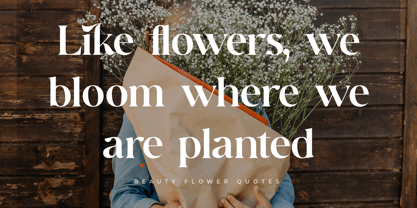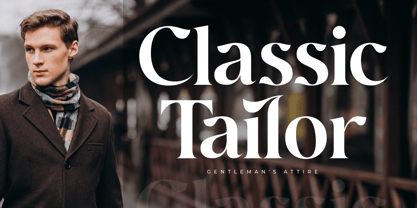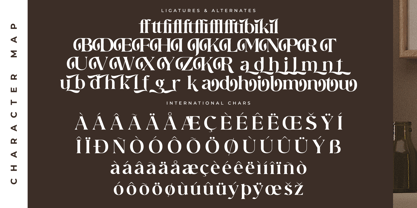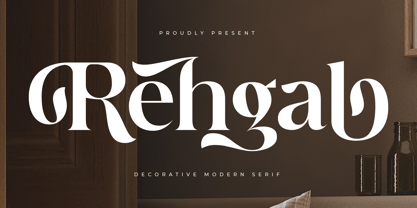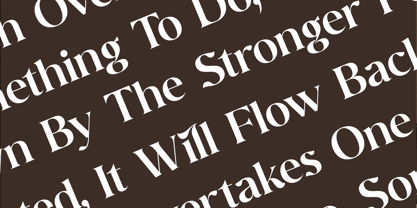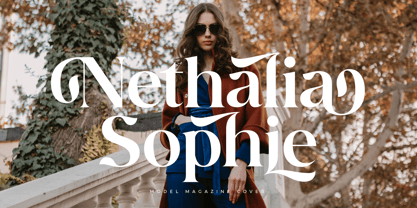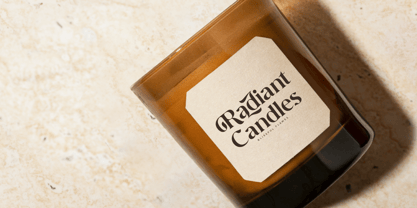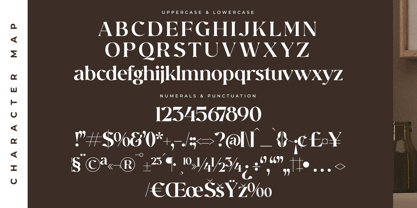
Rehgal
The Rehgal Font Family was designed by Heru Utama Putra and published by Letterena Studios. Rehgal contains 2 styles and family package options. More about this family
Rehgal is a luxurious serif font that captivates with its regal charm and refined aesthetics. Crafted for grandeur, its stately serifs and intricate details exude sophistication. Elevate your designs with the timeless elegance of Rehgal, a font that commands attention and exudes opulent style.